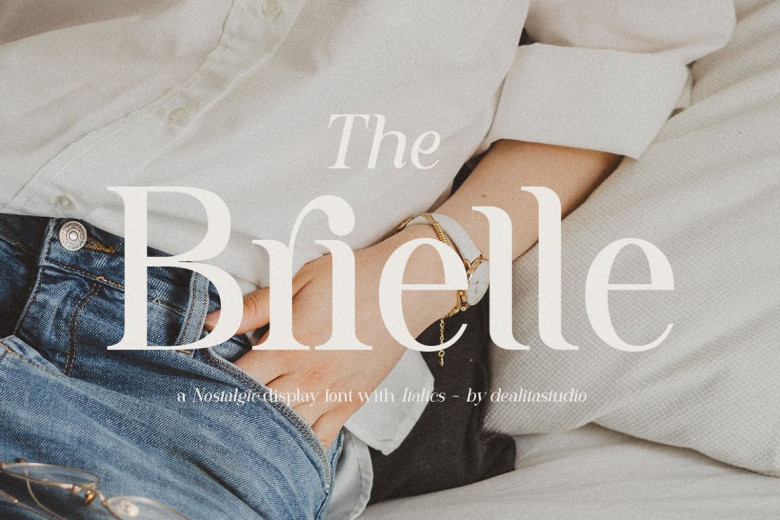
Brielle Font
Brielle is a sophisticated serif typeface. Perfectly to be applied to the other various formal forms such as invitations, labels, logos, magazines, books, greeting / wedding cards, packaging, fashion, make up, stationery, novels, labels or any type of advertising purpose.
Brielle Serif Typeface